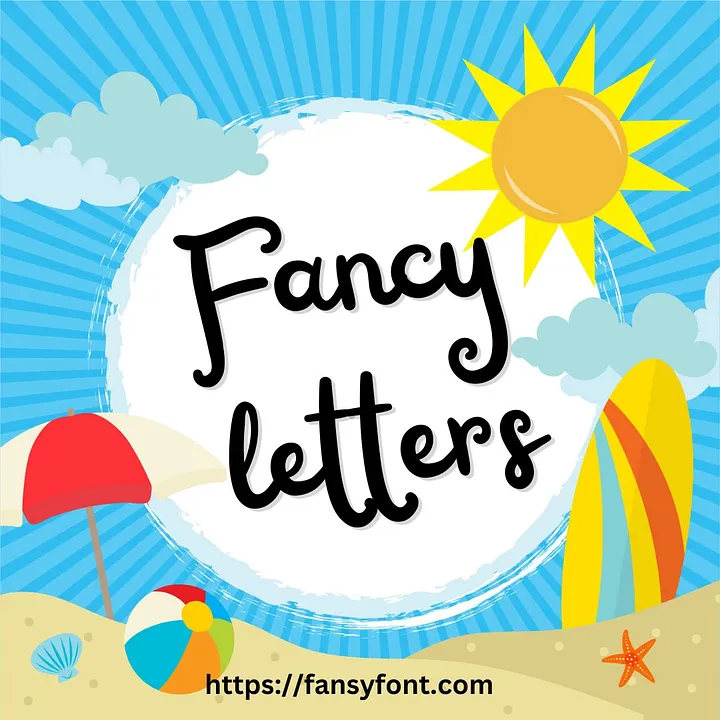
Different Types of Fancy Fonts
Indeed, the world of typography boasts a rich tapestry of diverse and captivating fancy fonts, each possessing its distinct personality and charm. Script fonts, characterized by their fluid and handwritten appearance, bring elegance and sophistication to designs akin to a beautifully penned letter. These fancy letters gracefully flow, adding a touch of timeless refinement to wedding invitations or high-end branding materials. On the other hand, serif fonts, with their small decorative flourishes at the end of letter strokes, exude a sense of tradition and formality. Their structured and classic demeanor lends itself well to academic publications or prestigious certificates, evoking a sense of credibility and reliability. Venturing further, decorative fonts ignite a playful spirit with their artistic and imaginative designs, often featuring embellishments, curls, or thematic elements that infuse a sense of whimsy. These fanciful letters can enliven children’s book covers, themed party invitations, or artistic posters, instantly capturing attention with their creative flair.
For a modern and minimalist aesthetic, sans-serif fonts step into the spotlight. Their clean lines and absence of embellishments radiate a contemporary vibe, making them ideal for sleek website designs, tech-oriented presentations, or cutting-edge product packaging. Display fonts, known for their bold and eye-catching nature, seize attention with their larger-than-life appearance. Perfect for headlines, banners, and attention-grabbing text, these fancy letters make an impactful statement and underline the content's core message. Handwritten fonts, embracing the imperfections of human penmanship, bring a personalized touch to projects, fostering a sense of intimacy and relatability. Such fonts enhance the authenticity of greeting cards, journal entries, or any design that aims to establish a warm and approachable connection.
In fantasy and the extraordinary, gothic fonts conjure mystery and intrigue with elaborate and intricate designs. Often associated with medieval manuscripts or the arcane, these fancy letters cast a spell of enchantment, making them ideal for fantasy book covers, role-playing game materials, or themed event invitations. And not to be overlooked, retro or vintage fonts take us on a nostalgic journey through time, mirroring the typography trends of yesteryears. With their distinct quaint charm, these fonts infuse a sense of nostalgia into branding projects, event promotions, or any endeavor seeking to evoke an understanding of the past.